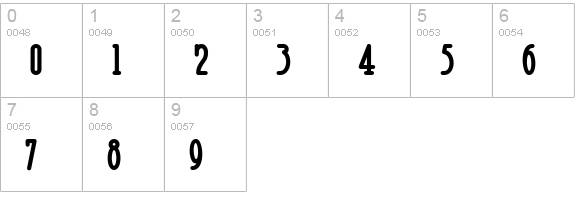
Risky Business Round NF Bold Font Details
Risky Business Round NF Bold is a strong, high-contrast variant in the Risky typeface family \xE2\x80\x94 well suited to headlines, attention-grabbing titles, and strong calls-to-action.
Risky Business Round NF Bold font is a bold and eye-catching typeface that is perfect for making a statement in your designs. With its rounded edges and modern aesthetic, this font exudes confidence and creativity. Whether you're working on a poster, logo, or branding project, Risky Business Round NF Bold will add a touch of boldness to your work. The best part is that Risky Business Round NF Bold font is available for free download at FontsMarket.com. That's right, you can easily get your hands on this versatile and stylish font without any cost. So why wait? Download Risky Business Round NF Bold font today and take your designs to the next level!